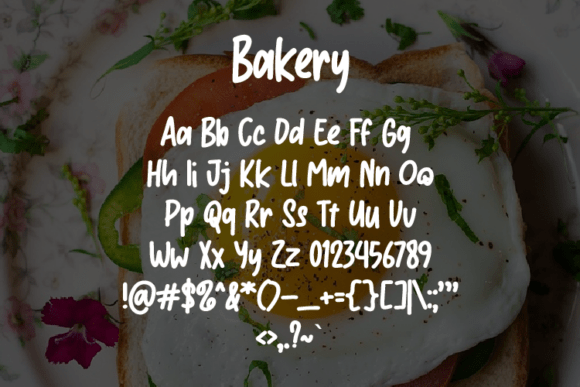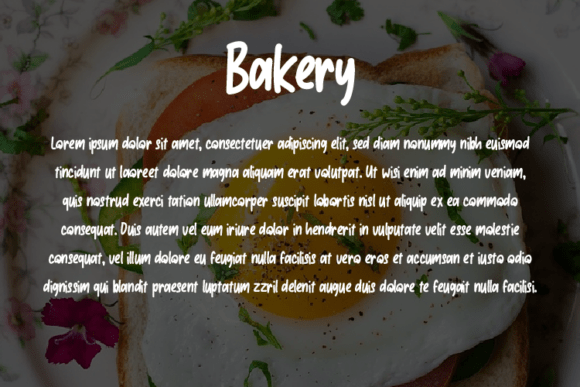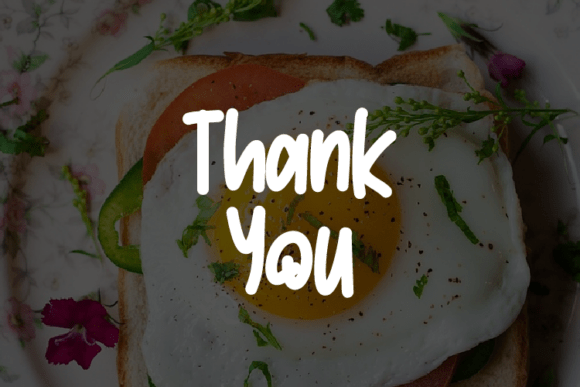
Bakery Font: Elevate Your Designs with Elegance and Readability
In the world of typography, a well-crafted font can make all the difference in elevating your designs to the next level. Introducing Bakery, a modern and elegant typeface that embodies flexibility and exceptional readability across various media. Whether you’re a designer, crafter, or simply someone who appreciates the art of typography, Bakery Font is an excellent addition to your toolkit.
What is Bakery Font?
Key Features of Bakery Font
- Modern and Elegant Design: Bakery Font boasts a sleek and sophisticated design, perfect for creating visually appealing materials that demand attention.
- Exceptional Readability: The font’s carefully crafted letterforms ensure excellent readability, even at smaller sizes, making it suitable for a wide range of applications.
- Flexible Usage: Bakery Font is versatile enough to be used in various contexts, from digital designs to print materials, and everything in between.
Bakery Font offers numerous benefits for designers and crafters looking to elevate their work. With its elegant design and exceptional readability, this font is perfect for:
- Branding and Identity: Create stunning logos, business cards, and letterheads that exude professionalism and sophistication.
- Digital Designs: Enhance your website, social media, and digital marketing materials with a modern and elegant typography.
- Print Materials: Elevate your print designs, including brochures, flyers, and posters, with a font that shines in both digital and print formats.
- Crafting and DIY Projects: Add a touch of elegance to your crafting and DIY projects, such as handmade cards, invitations, and journaling.
Bakery Font is an excellent addition to any designer’s or crafter’s toolkit. Its modern and elegant design, exceptional readability, and cross-platform compatibility make it an ideal choice for a wide range of applications. Whether you’re working on branding and identity, digital designs, print materials, or crafting and DIY projects, Bakery Font is sure to elevate your work to new heights. With its flexibility and versatility, this font is poised to become a staple in your design workflow.